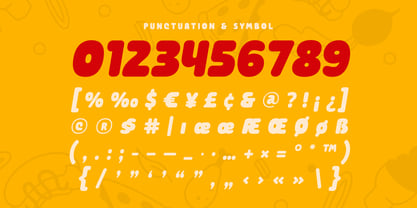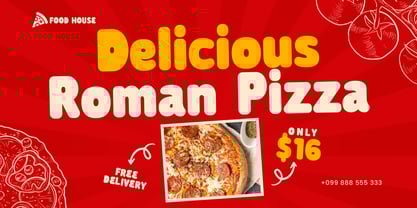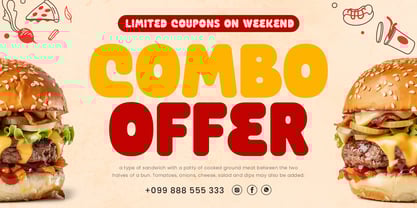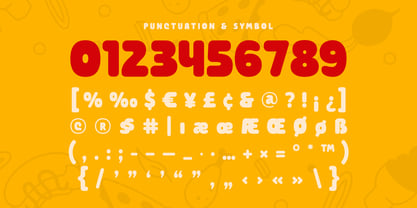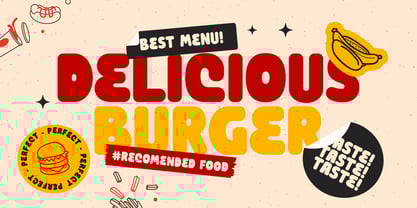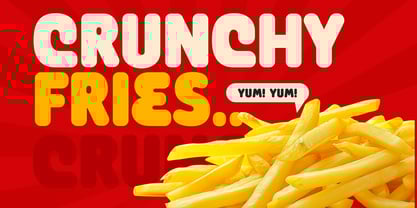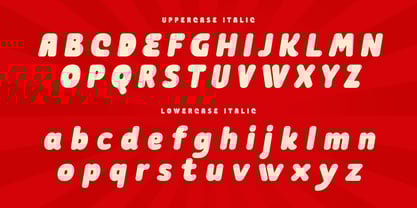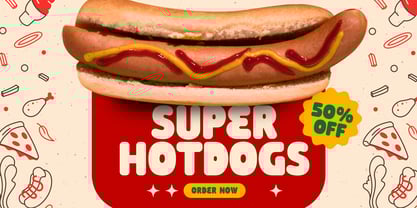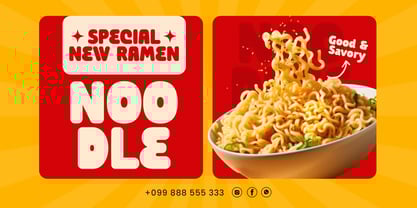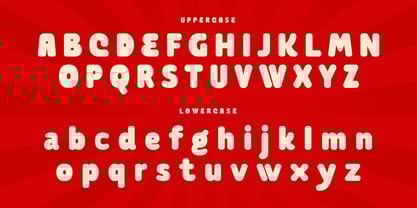
Baked SS
The Baked SS Font Family was designed by Zamroni Hamzah and published by Sensatype Studio. Baked SS contains 2 styles and family package options. More about this family
Baked SS is a heavy food font crafted to make your culinary headlines and designs stand out. Inspired by the rich, hearty essence of baked goods, Baked SS combines weight and character to create a font that's perfect for bold headlines, delicious menus, and eye-catching food-related designs. Whether you're designing a standout menu, creating a logo for a bakery, or crafting mouth-watering branding materials, Baked SS adds the perfect touch of flavor to your projects.
The Story Behind Baked:
Baked SS was inspired by the comforting and inviting world of baked goods. Designed with a heavy, bold style, Baked SS captures the essence of warmth, satisfaction, and culinary delight. It’s perfect for any project that needs to evoke a sense of richness and flavor. From cozy cafes and bustling bistros to gourmet bakeries and food festivals, Baked SS is the ideal font for all things food-related.
Baked SS Font Features:
• Heavy Design: Ideal for making bold headlines and impactful food branding.
• Versatile Usage: Perfect for restaurant logos, menus, packaging, and culinary designs.
• High Legibility: Ensures your text stands out and is easy to read.
• Delicious Aesthetic: Adds a rich and inviting feel to your food-related projects.
• Inspirational Previews: Includes sample designs to showcase the font's potential and spark your creativity.
Enhance your culinary designs with Baked SS and add a heavy, flavorful touch to your work.